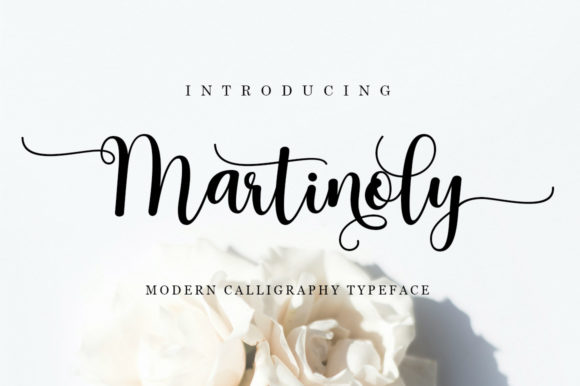
Behold, Martinoly Font, a calligraphic masterpiece crafted by the visionary Romie Creative. This enchanting script font radiates elegance and sophistication, leaving an indelible impression on your designs. As a member of the script font family, Martinoly exudes a captivating charm, evoking a sense of timeless beauty. Enter a realm of creativity where words dance with grace and charm.
With its light and airy strokes, Martinoly delicately weaves its way across the page, adding an ethereal touch to your designs. Its unique feel and stunning impact leave a lasting impression, elevating your projects to new heights of visual appeal. Whether you seek to create stunning wedding invitations, heartfelt greeting cards, or eye-catching social media posts, Martinoly is your perfect companion.
Immerse yourself in the world of Martinoly, where every letter is a work of art. Its PUA encoding unlocks a treasure trove of amazing glyphs and ligatures, granting you the freedom to express your creativity effortlessly. Unleash your imagination and explore boundless possibilities as you craft designs that radiate originality and style.
Martinoly is more than just a font; it's an experience. It transports you to a realm of elegance and grace, where your designs take on a life of their own. Experience the joy of creating with Martinoly, and let your imagination soar to new heights.